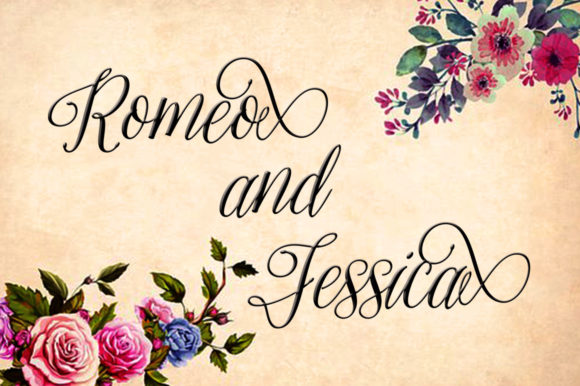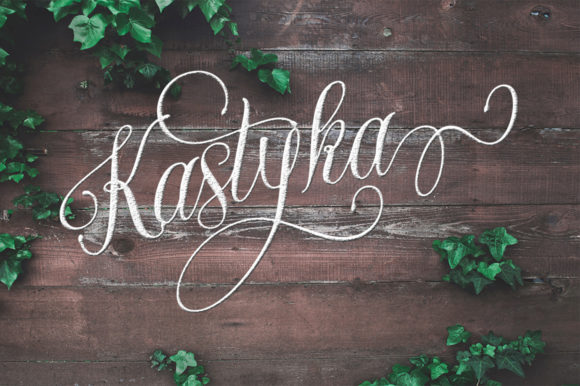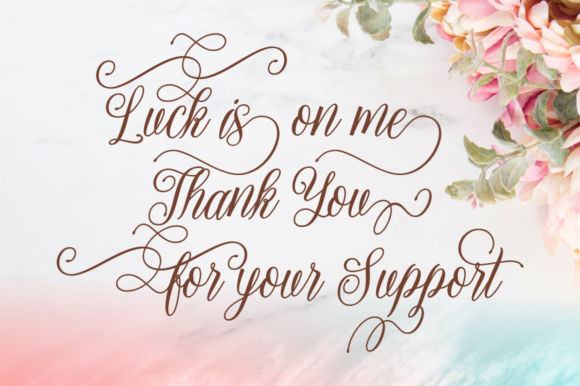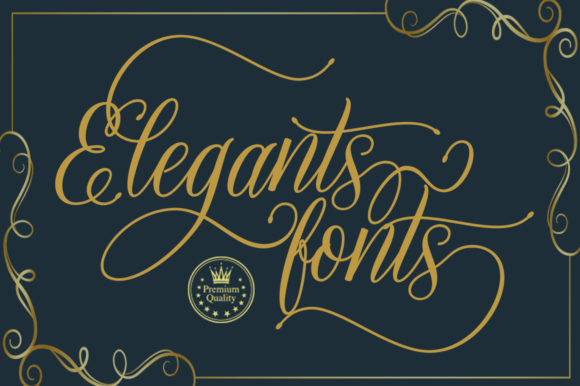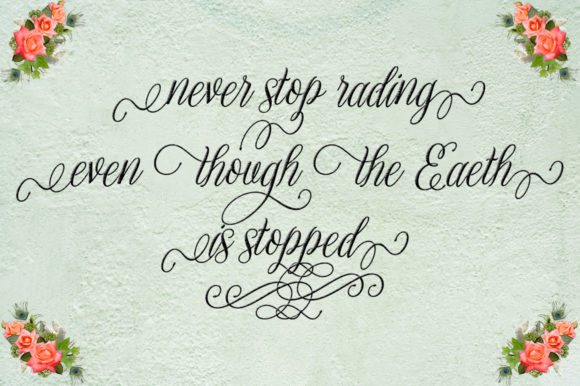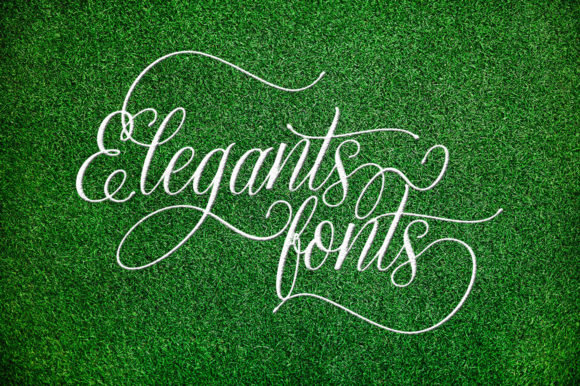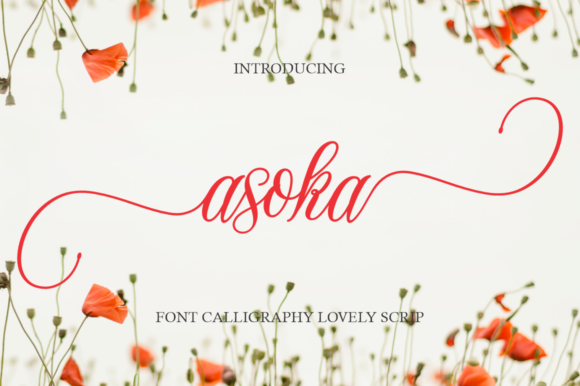
The Designer’s Delight: Uncovering the Beauty of Asoka Font
I’ll never forget the time I was working on a wedding invitation project, and my client asked for a font that was both elegant and unique. I scoured the internet, tried out countless fonts, but nothing seemed to fit the bill. That was until I stumbled upon Asoka Font. ✨ It was love at first sight! The beautiful, flowing script and balanced character set won me over, and I’ve been hooked ever since.
What I Love About Asoka Font
• ✨ Stunning script design that’s perfect for creating high-quality visual content
• 🌈 Versatile and suitable for a wide range of design projects, from packaging to event posters
• 💻 Works well with large design pools and pairs nicely with other fonts
While Asoka Font is an amazing addition to any design project, there are a few things to keep in mind: 🤔
• ⚠️ Some characters may require manual kerning for optimal results
• ⚠️ Not all platforms support OpenType features, which may limit access to certain glyphs and swashes
The Story Behind Asoka Font
Asoka Font was created with the intention of providing a beautiful, high-quality script font for designers and crafters. While the exact backstory is unclear, it’s evident that the designer poured their heart and soul into creating a font that’s both elegant and versatile.
Q: What is Asoka Font best used for?
A: Asoka Font is perfect for creating high-quality visual content, such as packaging, invitation cards, flyers, mockups, and event posters.
Q: Is Asoka Font PUA encoded?
A: Yes, Asoka Font is PUA encoded, making it easy to access glyphs and swashes.